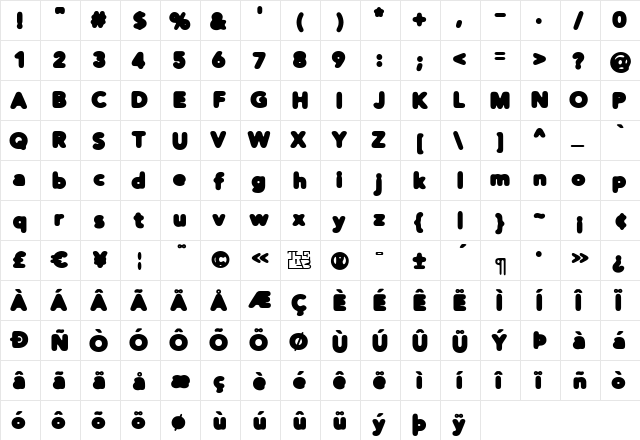
Distro Black Regular
| Designer | Peter Ramsey & Apostrophe |
Design Context for Distro Black Typeface
Distro Black offers clean, dependable letterforms without strong stylistic allegiance, making it a practical choice for designers who need flexibility.